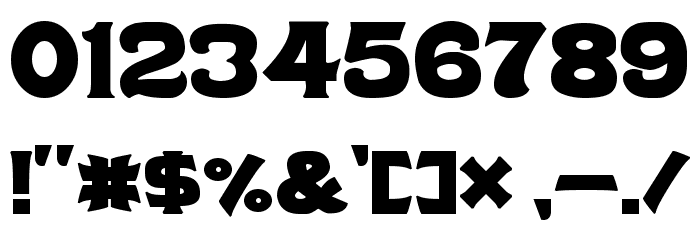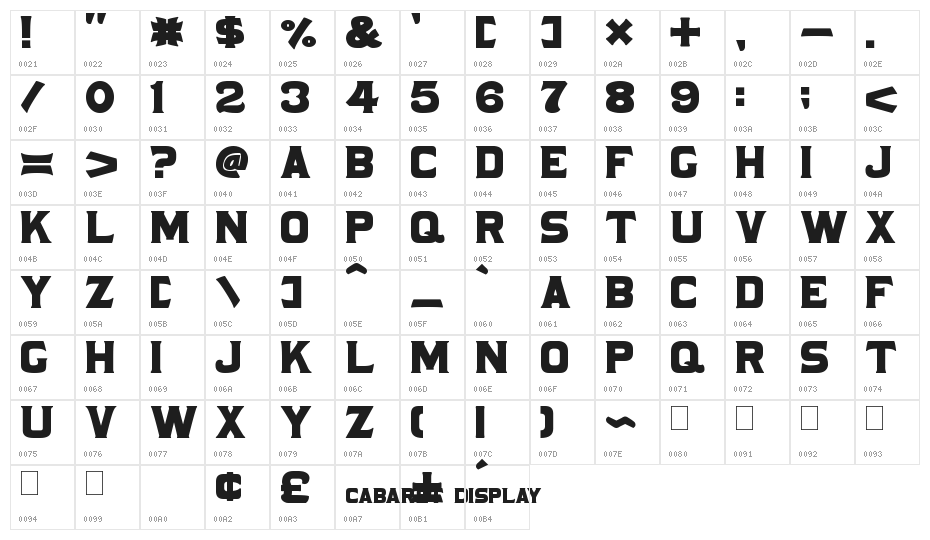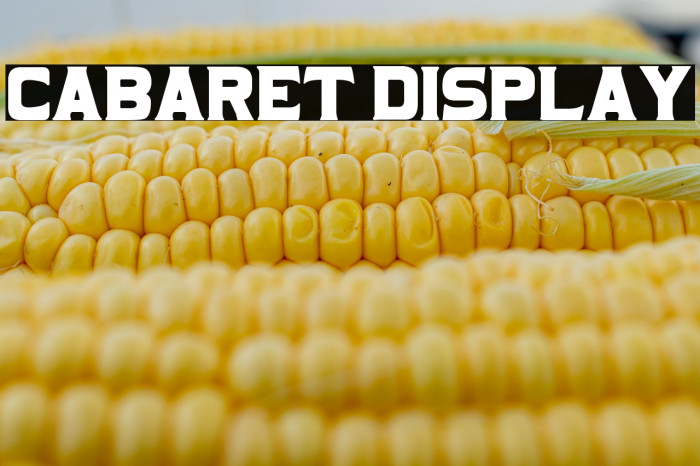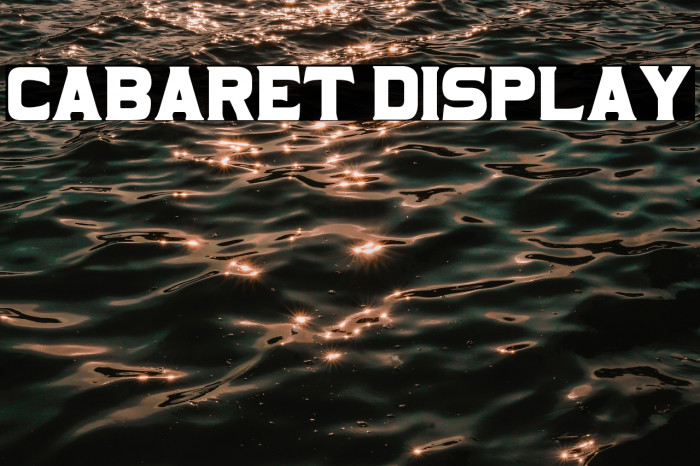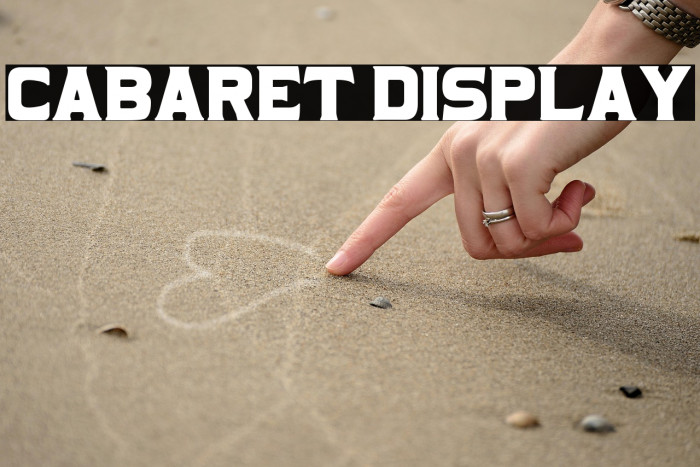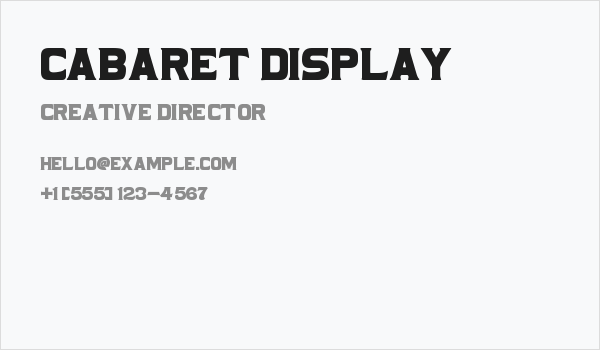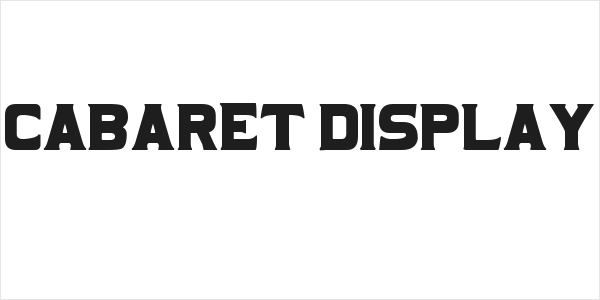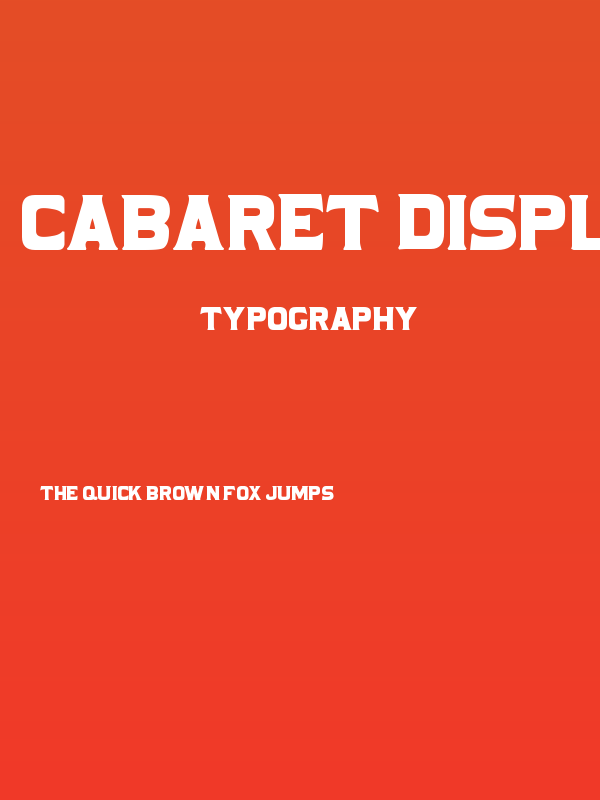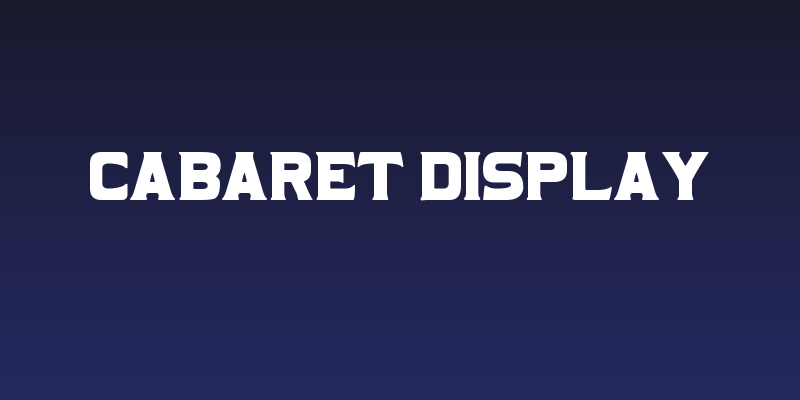
Cabaret Display Font
Cabaret Display Description
This font is a bold and striking display typeface with a strong presence. It features thick, block-like characters with a slightly condensed width, giving it a powerful and impactful look. The uppercase letters are particularly prominent, with a uniform stroke width that enhances their boldness. The numerals and special characters maintain this robust style, ensuring consistency across all glyphs. The font's design is modern and assertive, making it ideal for attention-grabbing headlines and titles. Its geometric shapes and clean lines contribute to a contemporary aesthetic, while the overall style remains versatile enough for various design applications.
| Proposed Projects | Ideal for posters, headlines, branding, and advertising materials that require a bold statement. |